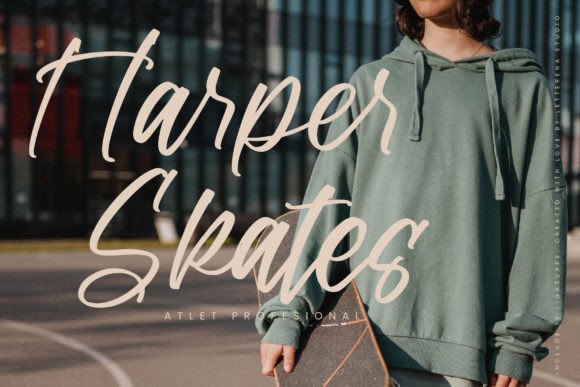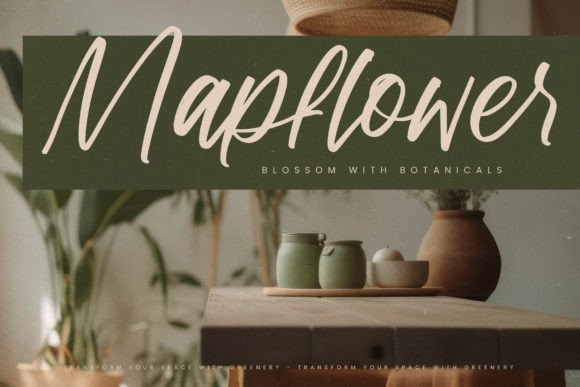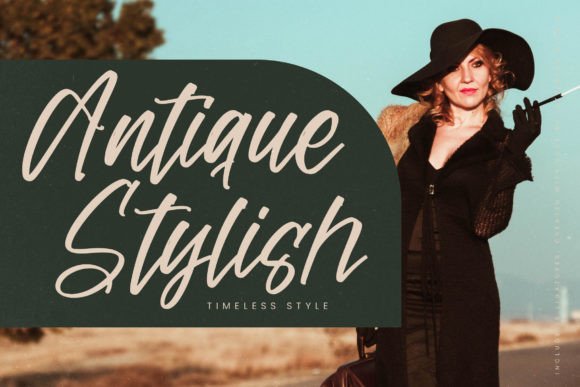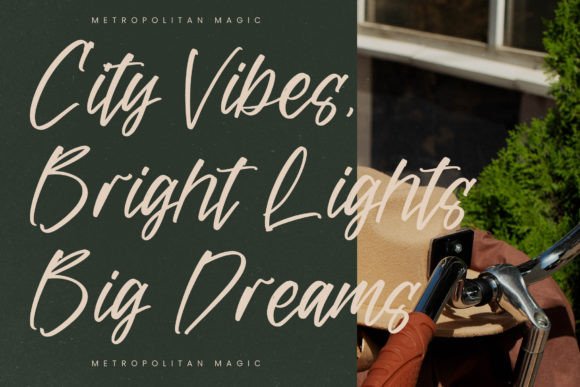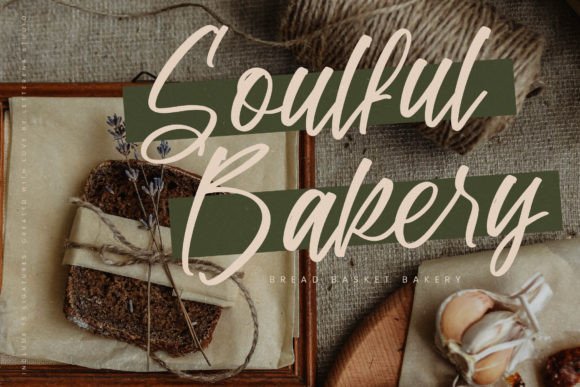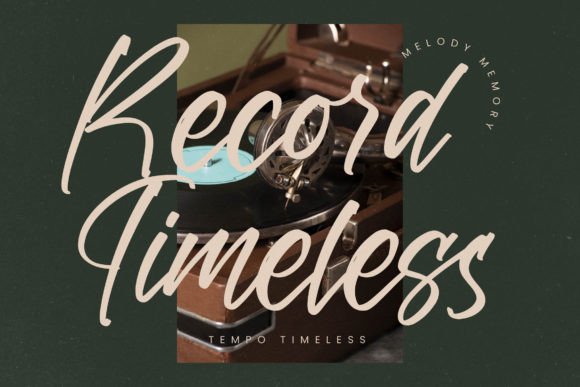
The Magic of Golden Forest Font: Elevate Your Designs with Elegance
I’ll never forget the time I was working on a high-end wedding invitation project, and my client asked for a font that exuded luxury and sophistication. I scoured the internet, tried countless fonts, but nothing seemed quite right. That was until I stumbled upon Golden Forest Font. Its elegant, flowing strokes and charming personality instantly won me over. In this article, I’ll share my love for this beautiful font, its features, and how to make the most of it in your designs.
A Personal Review: What I Love About Golden Forest Font
Here’s what makes Golden Forest Font a standout in my book:
- ✨ Elegant and Refined: Golden Forest Font has a sophisticated charm that’s perfect for upscale designs, such as luxury brand logos, high-end wedding invitations, and chic editorial layouts.
- ✅ Versatile: This font is highly versatile and can be used for a wide range of projects, from personal branding to digital and print designs.
- 💫 Unique Character: Golden Forest Font has a distinct personality that sets it apart from other fonts. Its subtle quirks and nuances make it feel more human and relatable.
While Golden Forest Font is an excellent choice, there are a few things to keep in mind:
- ⚠️ Legibility at Small Sizes: Like many script fonts, Golden Forest Font can be tricky to read at very small sizes. Make sure to test it in your design to ensure it works well for your specific project.
- 🤔 Pairing with Other Fonts: While Golden Forest Font is beautiful on its own, it can be challenging to pair with other fonts. Experiment with different combinations to find the perfect match.
- Experiment with OpenType features like ligatures and stylistic alternates to add more flair to your design.
The Story Behind Golden Forest Font
Legend has it that Golden Forest Font was inspired by the scenic landscapes of Tuscany. Its creator, a talented type designer, sought to capture the essence of the rolling hills, golden sunsets, and charming villages. The result is a font that exudes warmth, elegance, and refinement.
| Font Name | Golden Forest Font |
| Author | Letterena Studios |
| What makes Golden Forest Font unique? | Golden Forest Font boasts a distinctive personality, elegant strokes, and sophisticated character, making it perfect for upscale designs. |
| Is Golden Forest Font suitable for body text? | While Golden Forest Font is beautiful, it’s best suited for headings and titles. Its elegant strokes and flowing design make it less suitable for long-form body text. |
| Can I use Golden Forest Font for personal branding? | Absolutely! Golden Forest Font’s refined and elegant design makes it an excellent choice for personal branding, especially for luxury and creative professionals. |